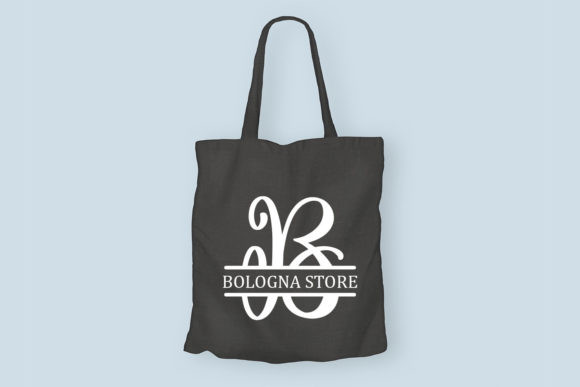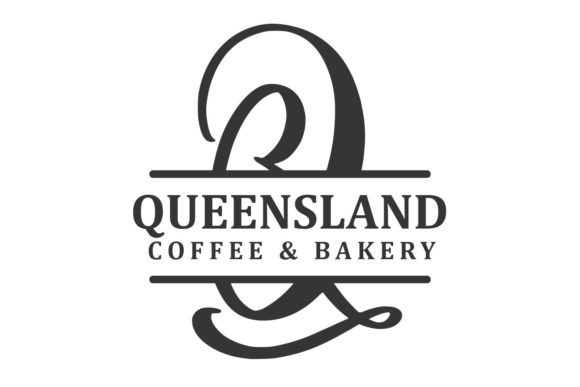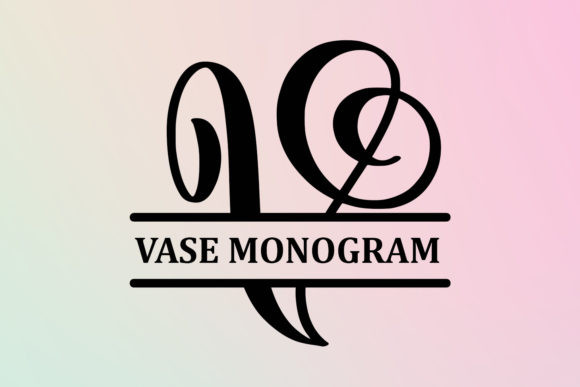
Vase Monogram Font
Vase Monogram Font is a stylish and distinct display font, designed for crafters.It is great for t-shirt designs, logos, quotes, mugs, tote bag designs, cards, banners, social media, and anything related to craft projects.